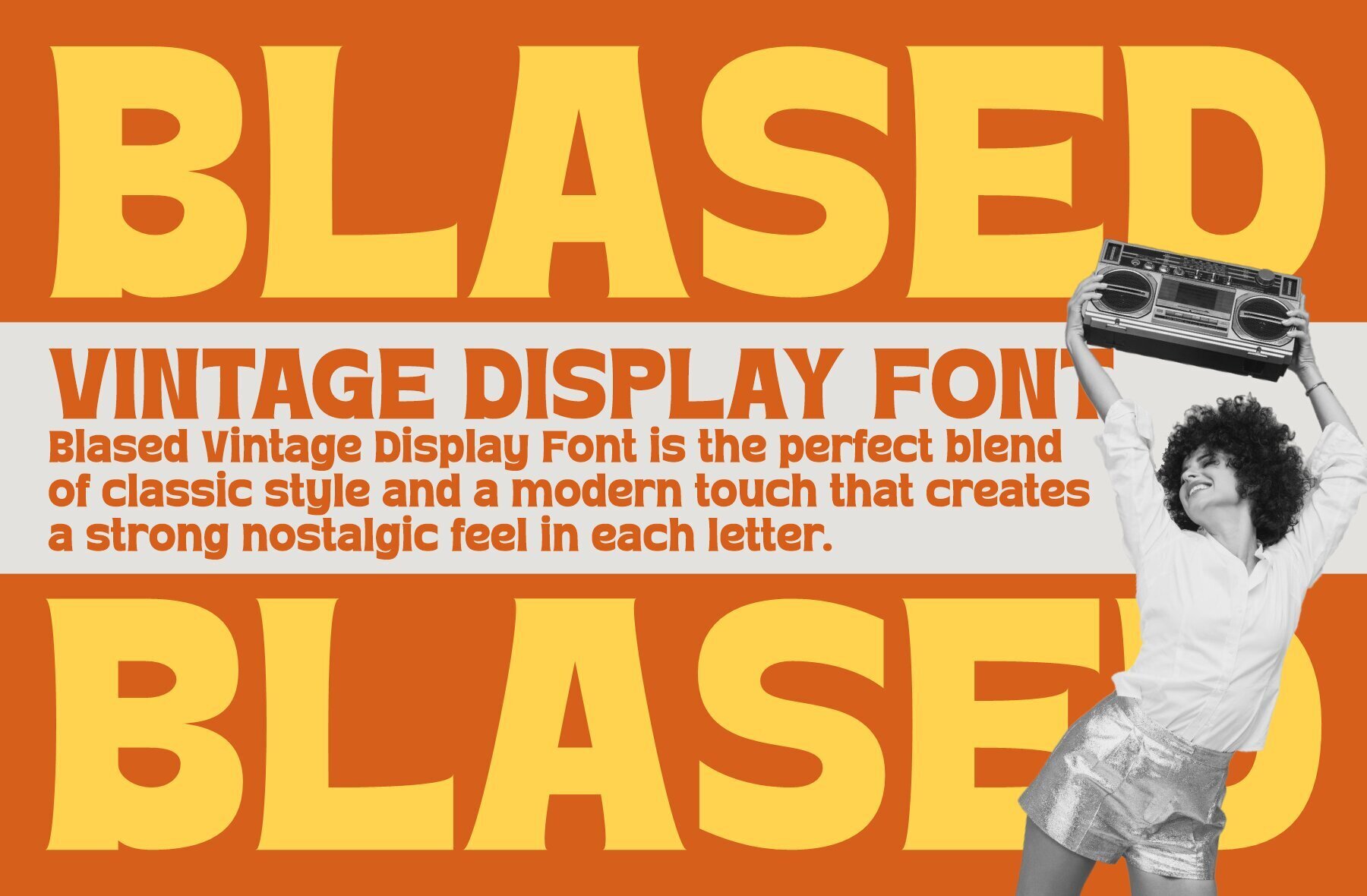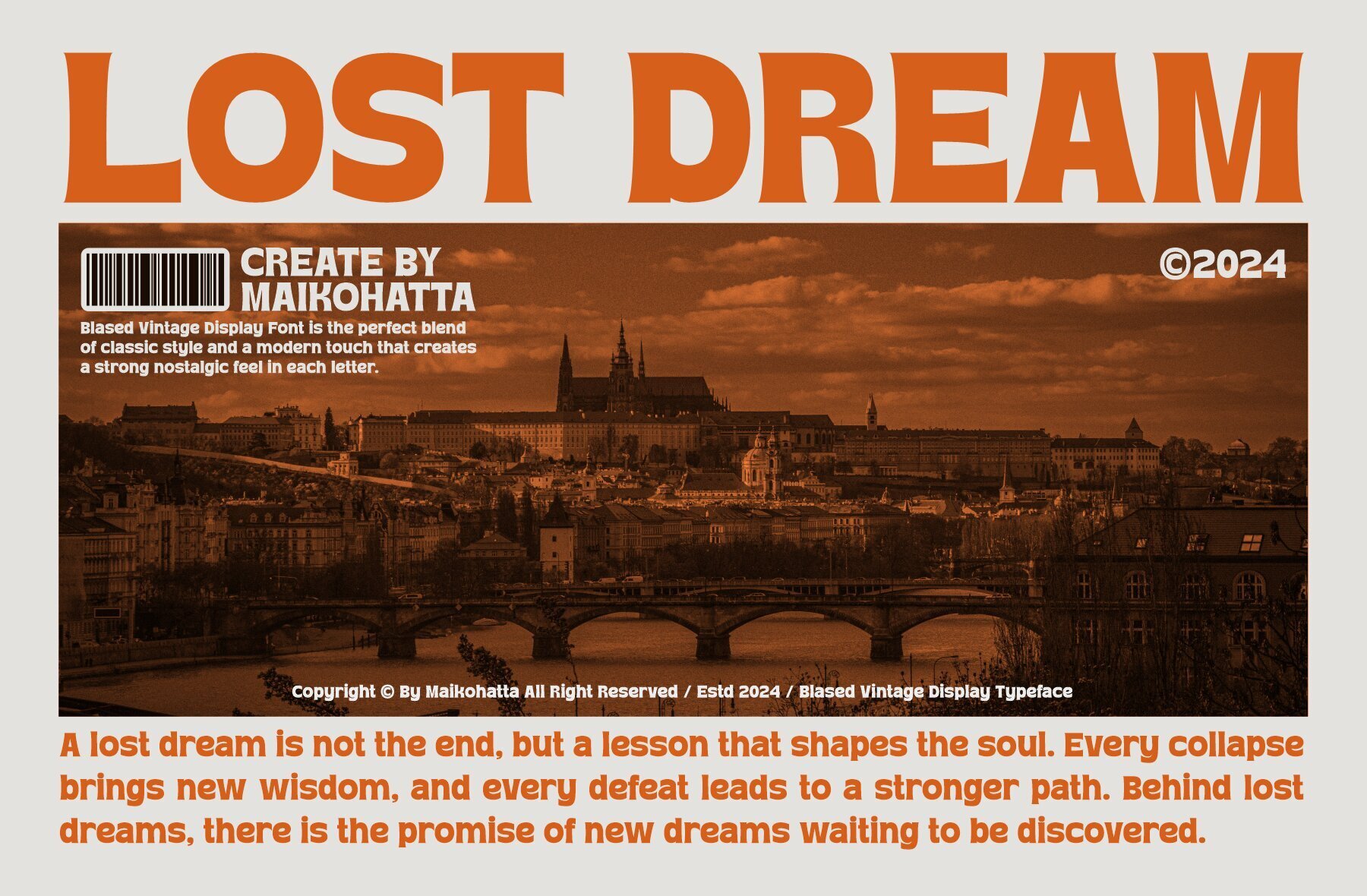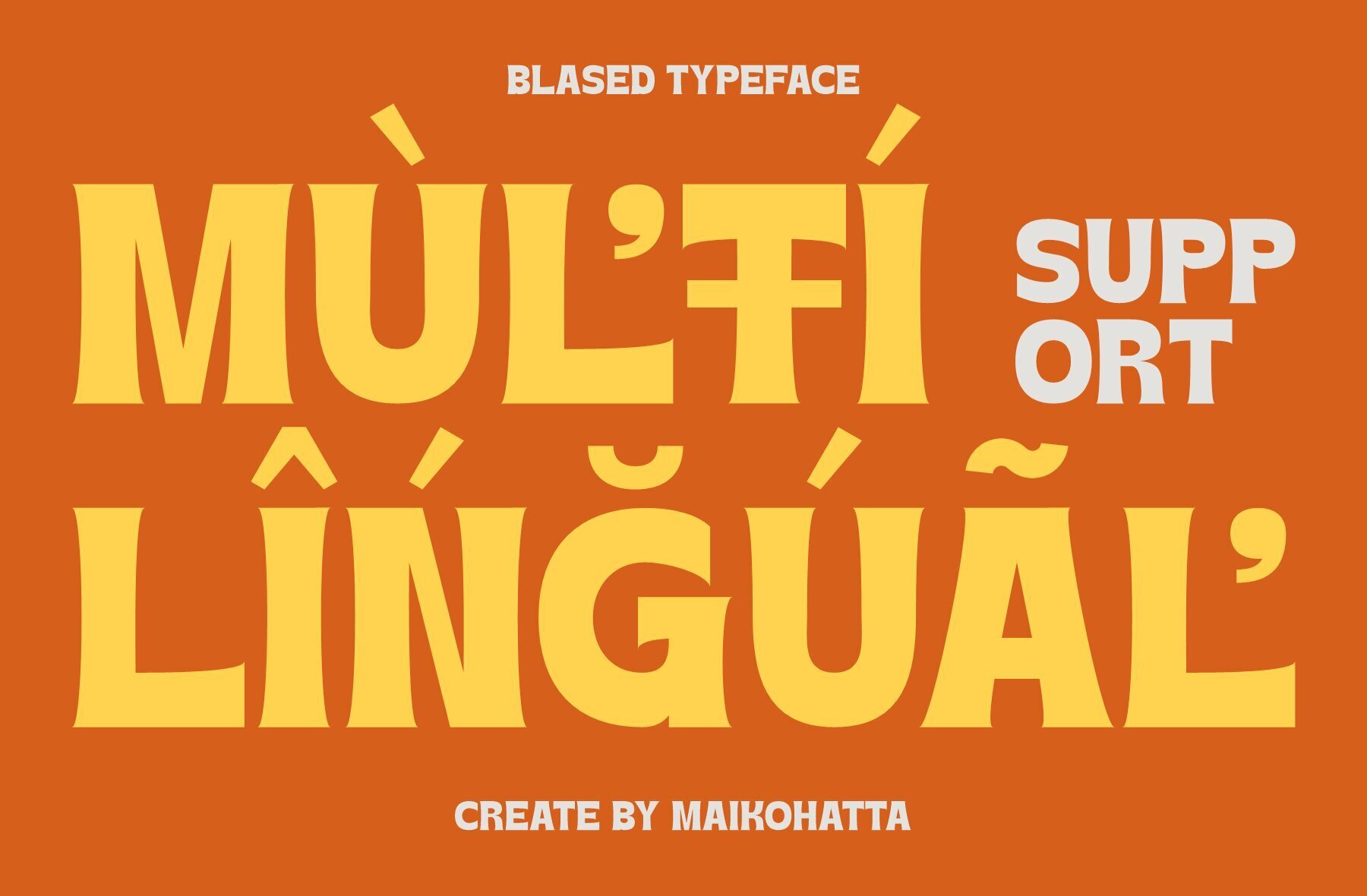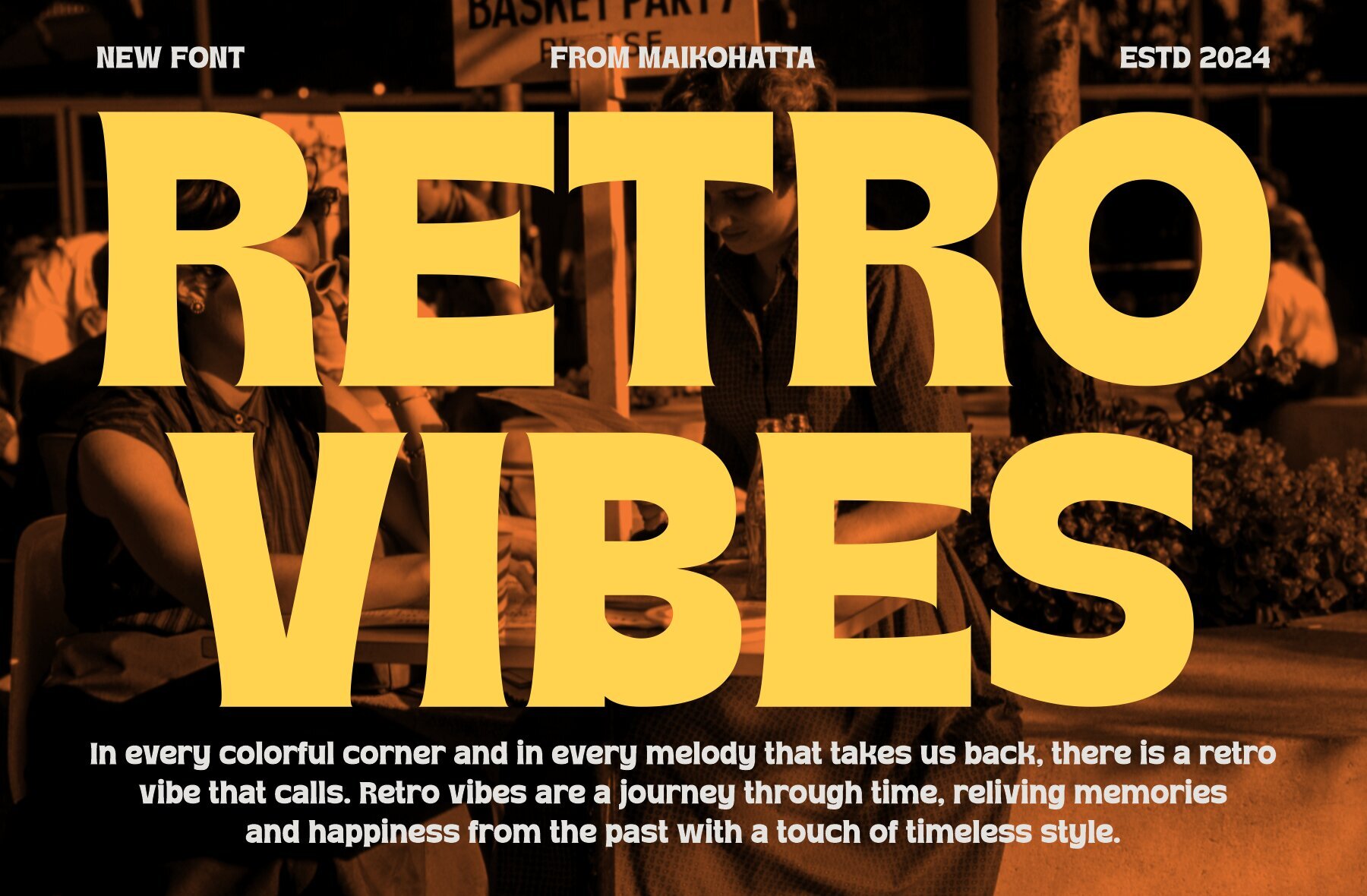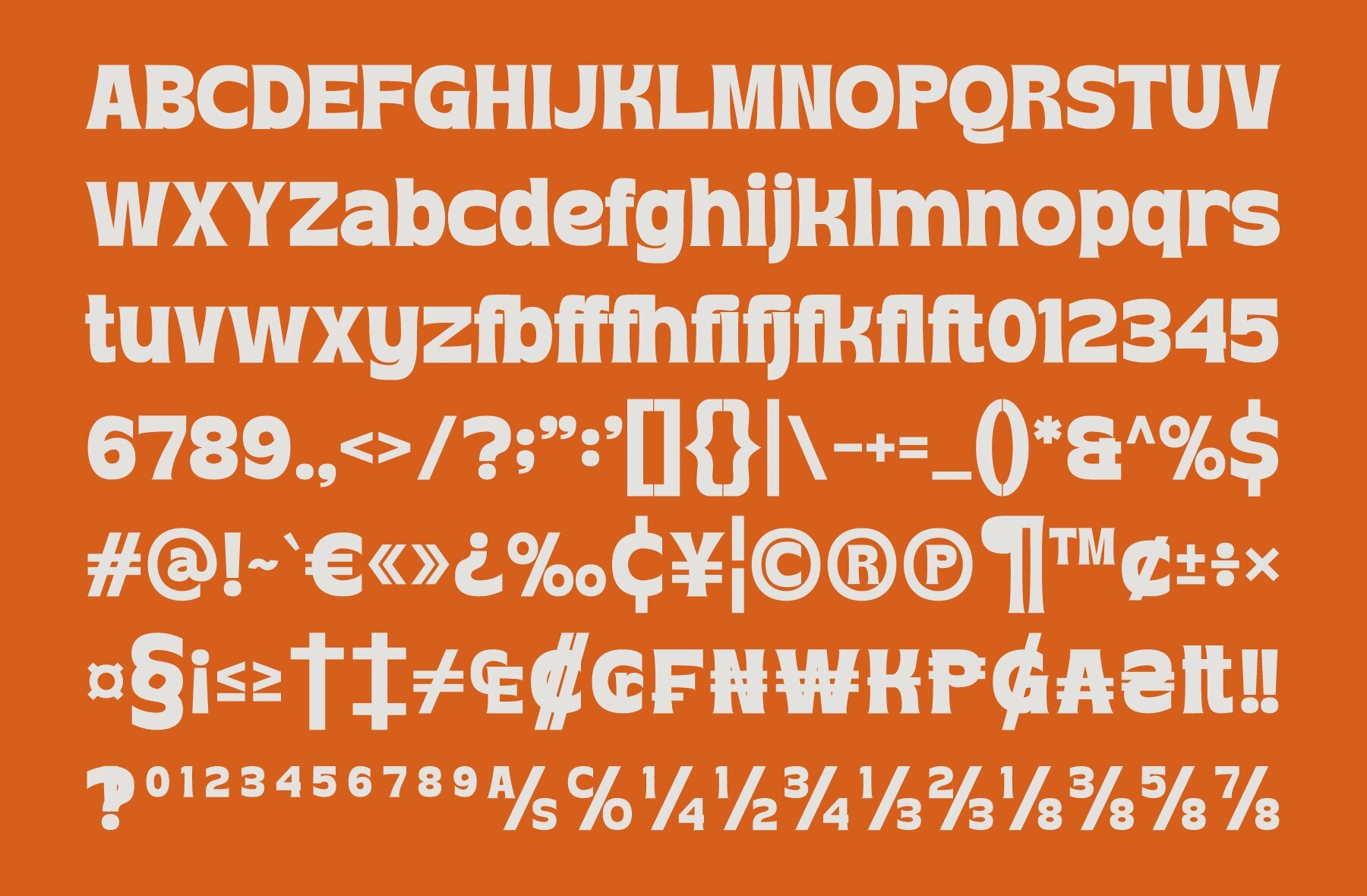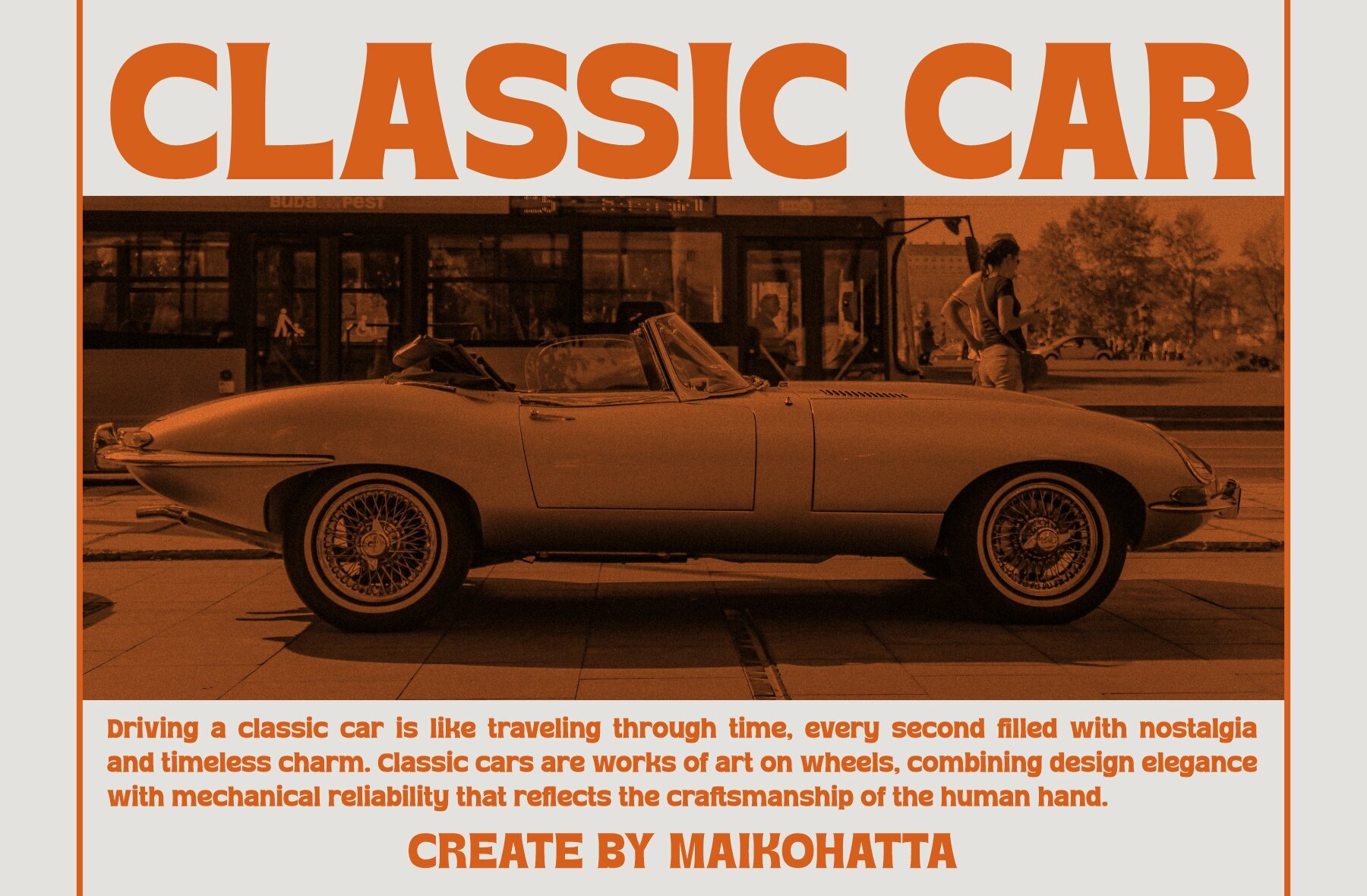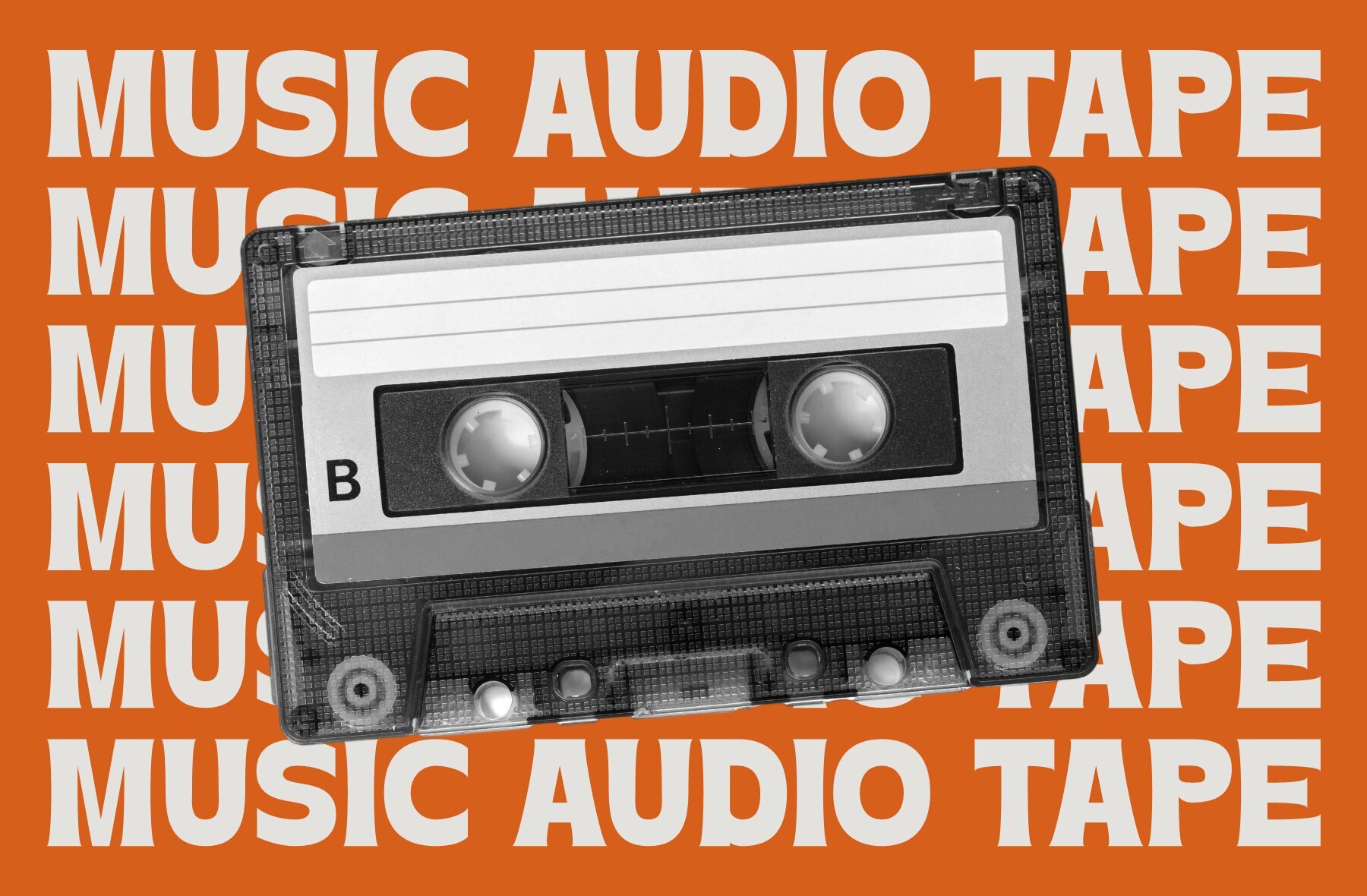
Blased Font
Blased Regular
Blased is a retro display font designed to infuse joy, cheerfulness, and a light atmosphere into your projects with its hand-drawn, comic-style aesthetic. This font shines in designs that seek to emphasize playfulness and fun, making it ideal for:
- Poster Designs
- Invitation Cards
- Comics
- Promotional Materials
- Uppercase & Lowercase Letters
Add a dose of whimsy and charm to your designs with Blased. Perfect for engaging a younger audience or anyone looking to bring a fun feel to their work.